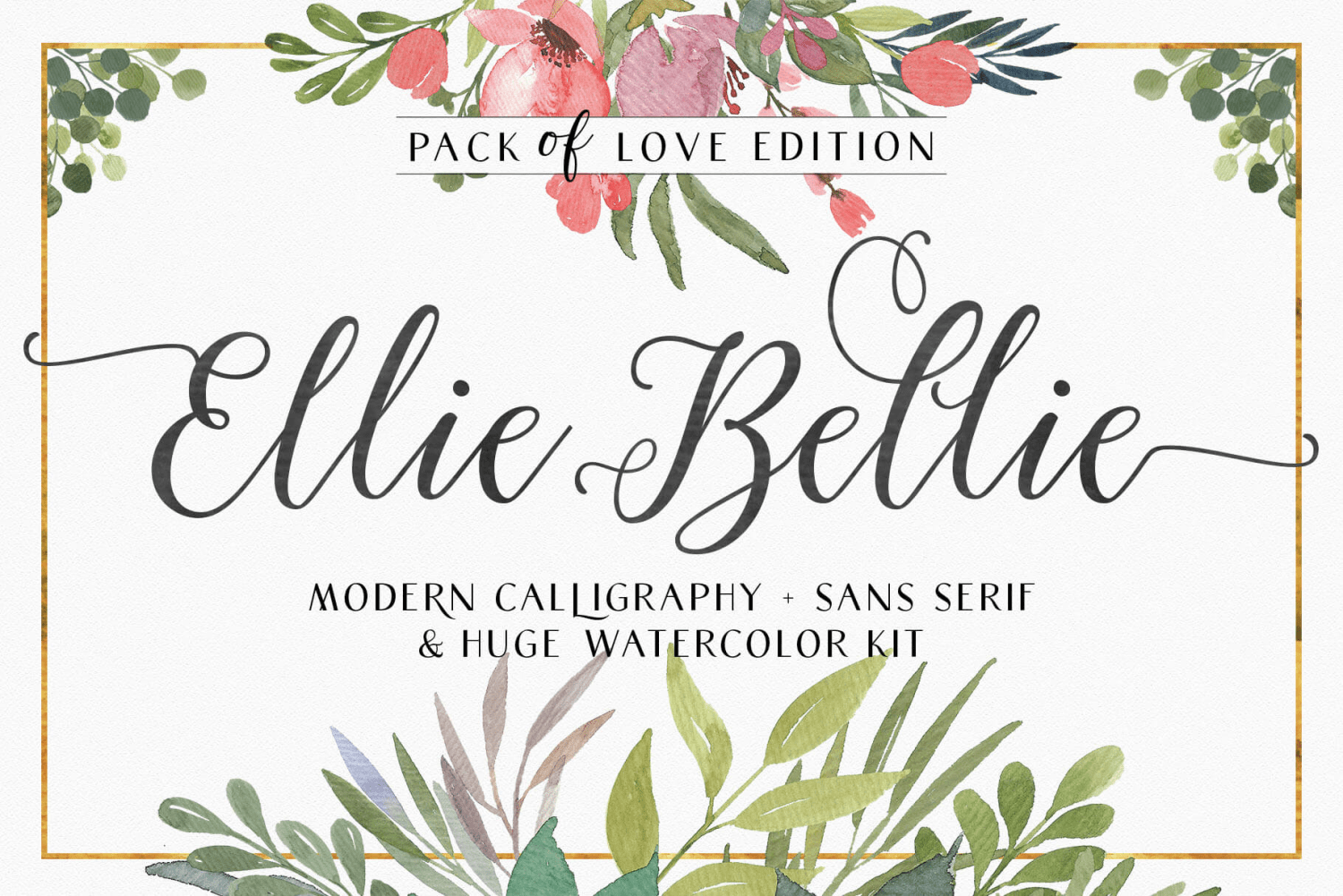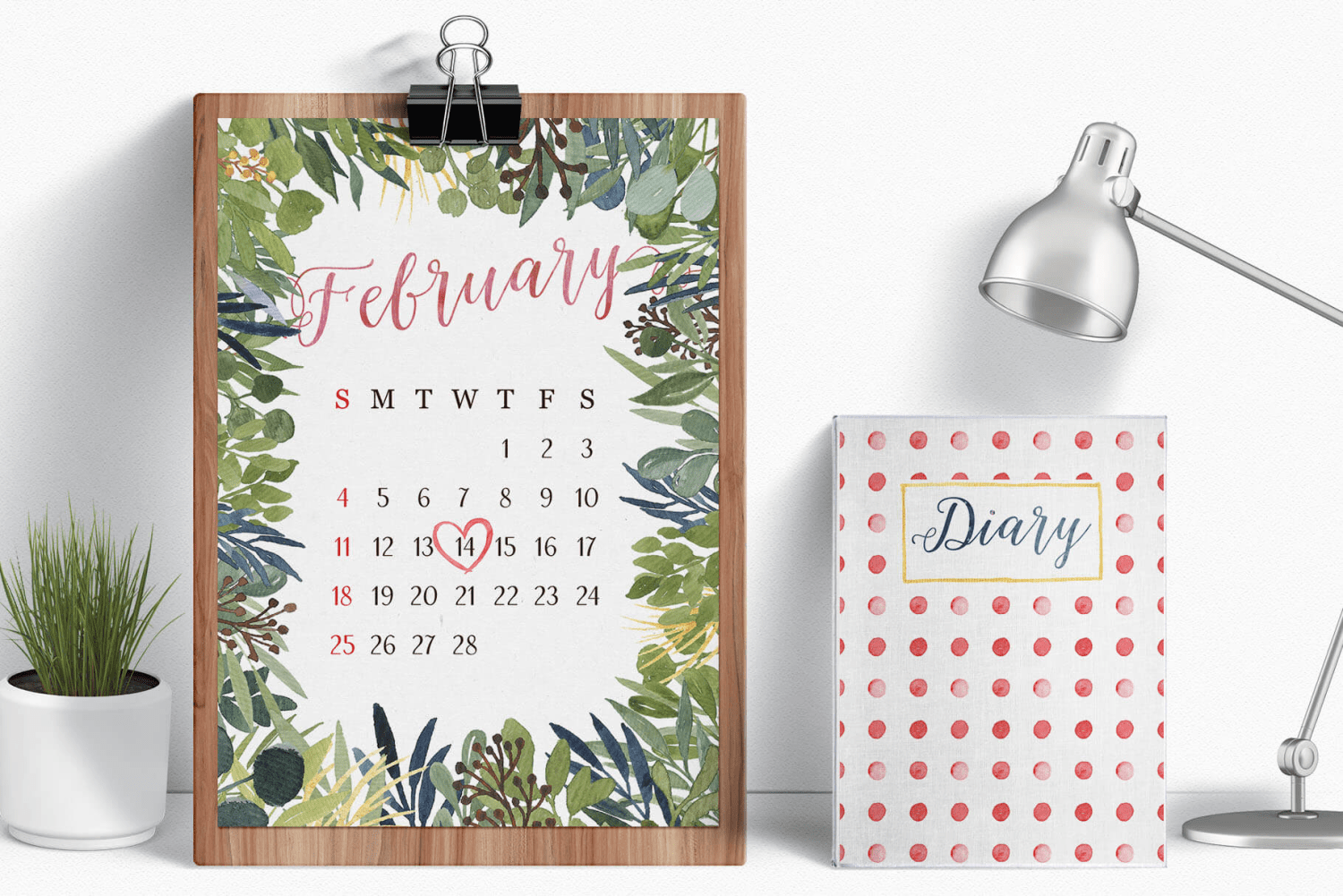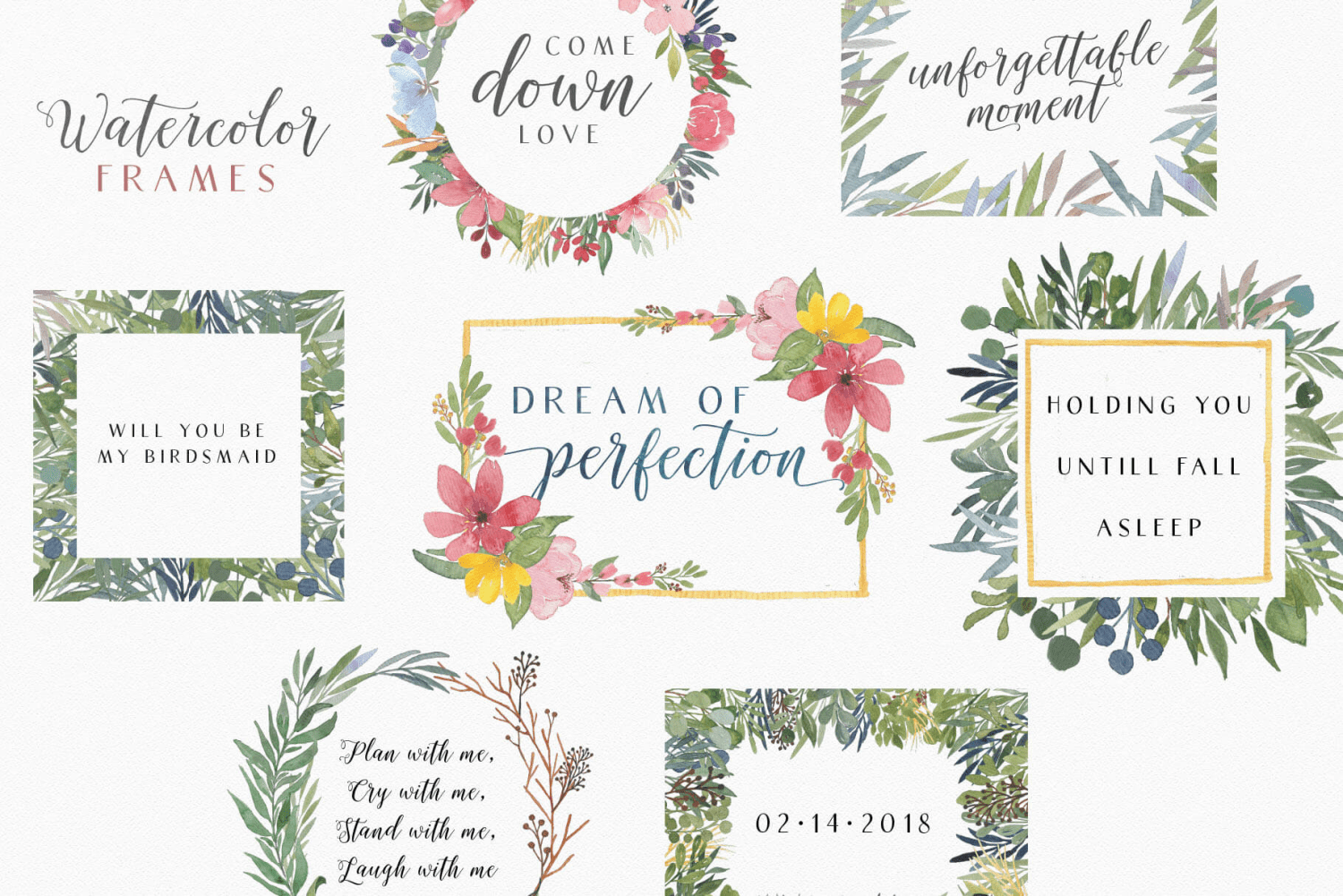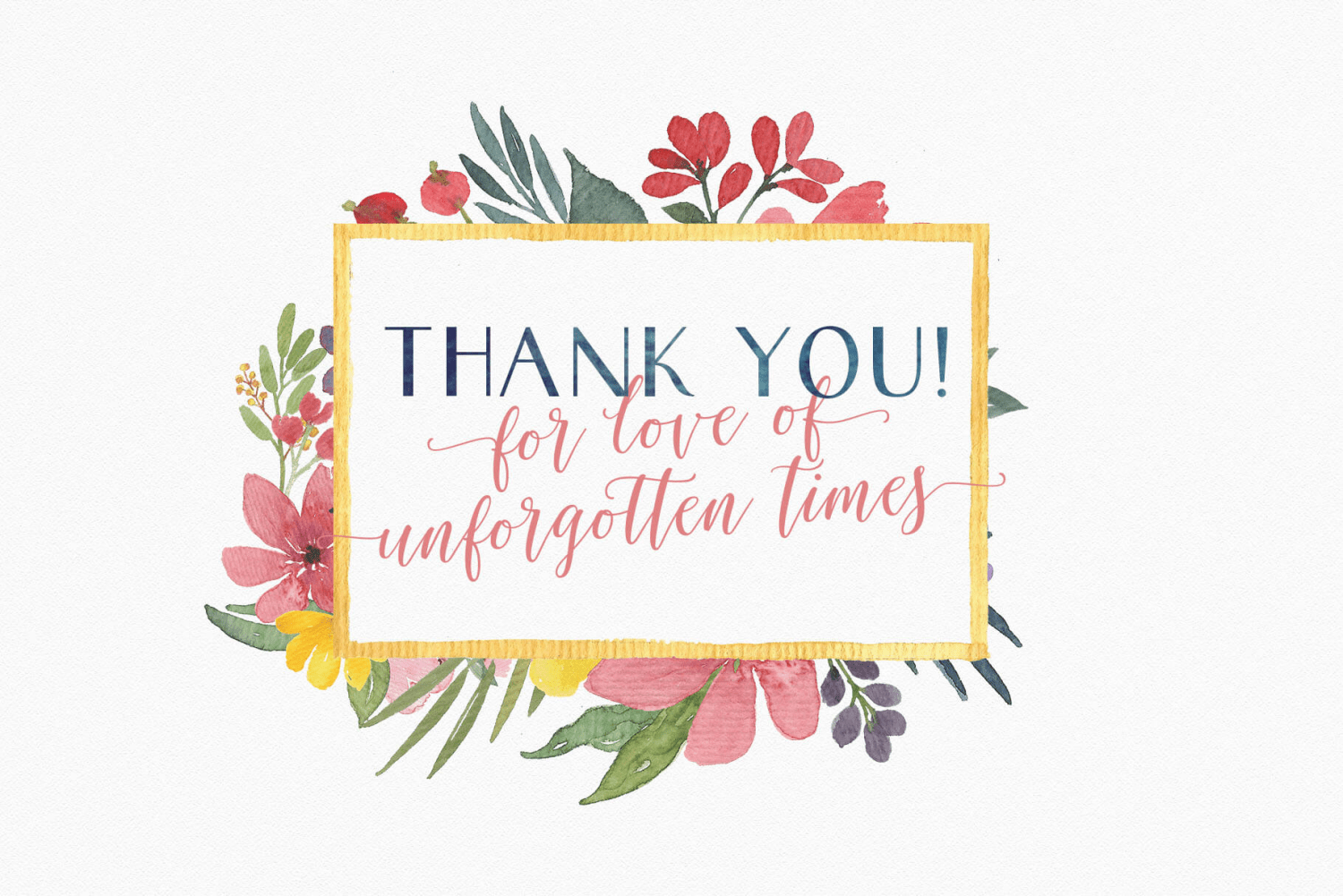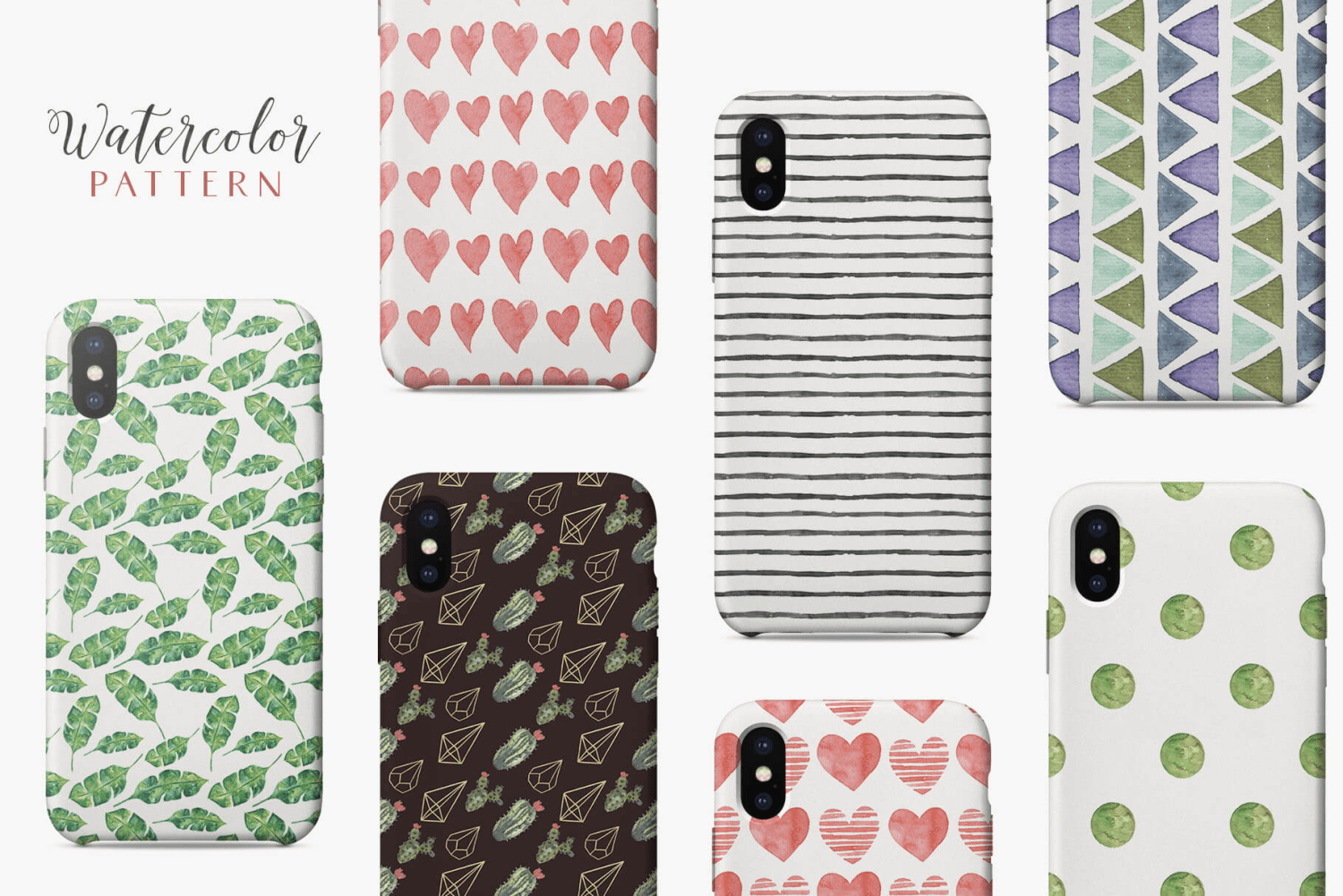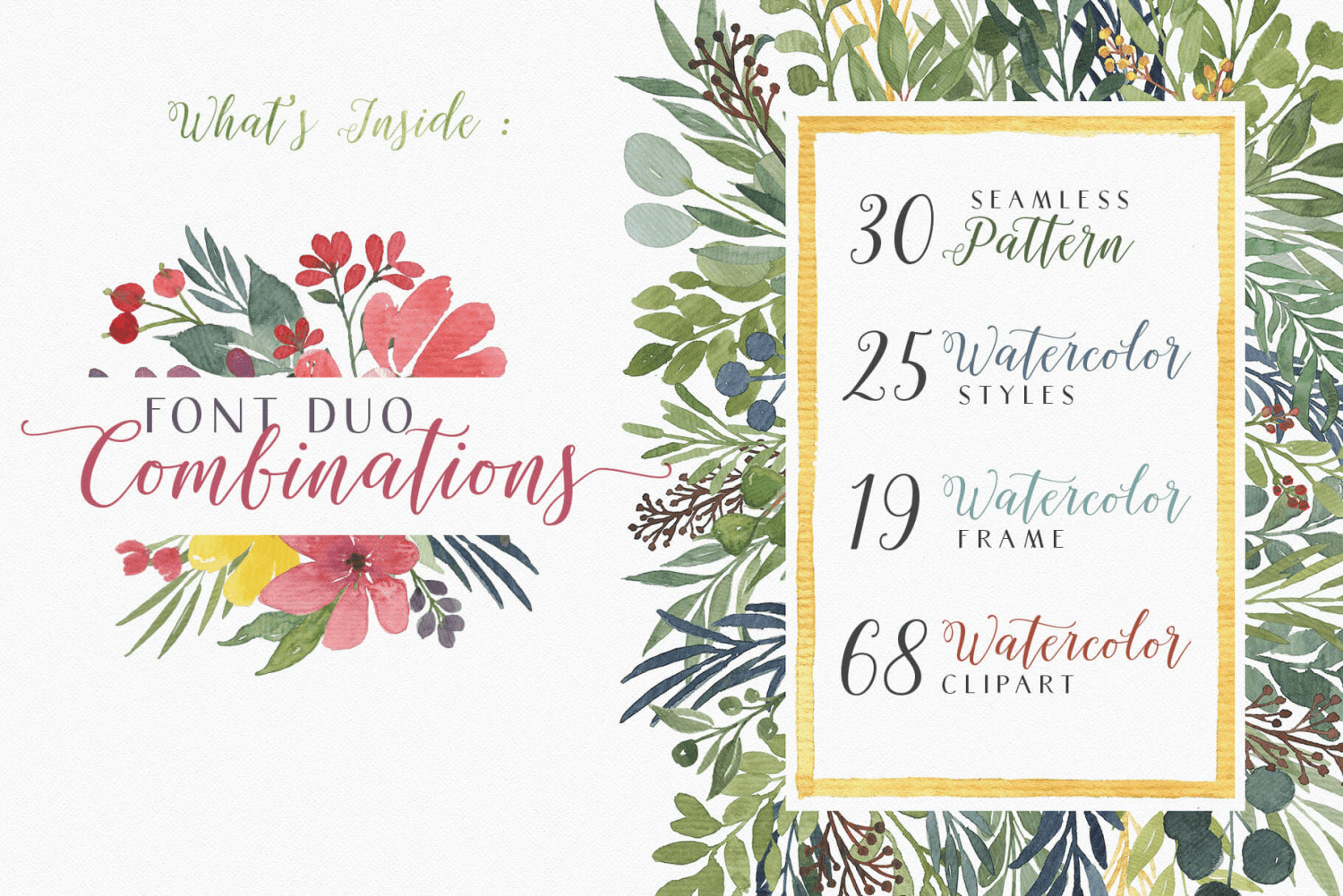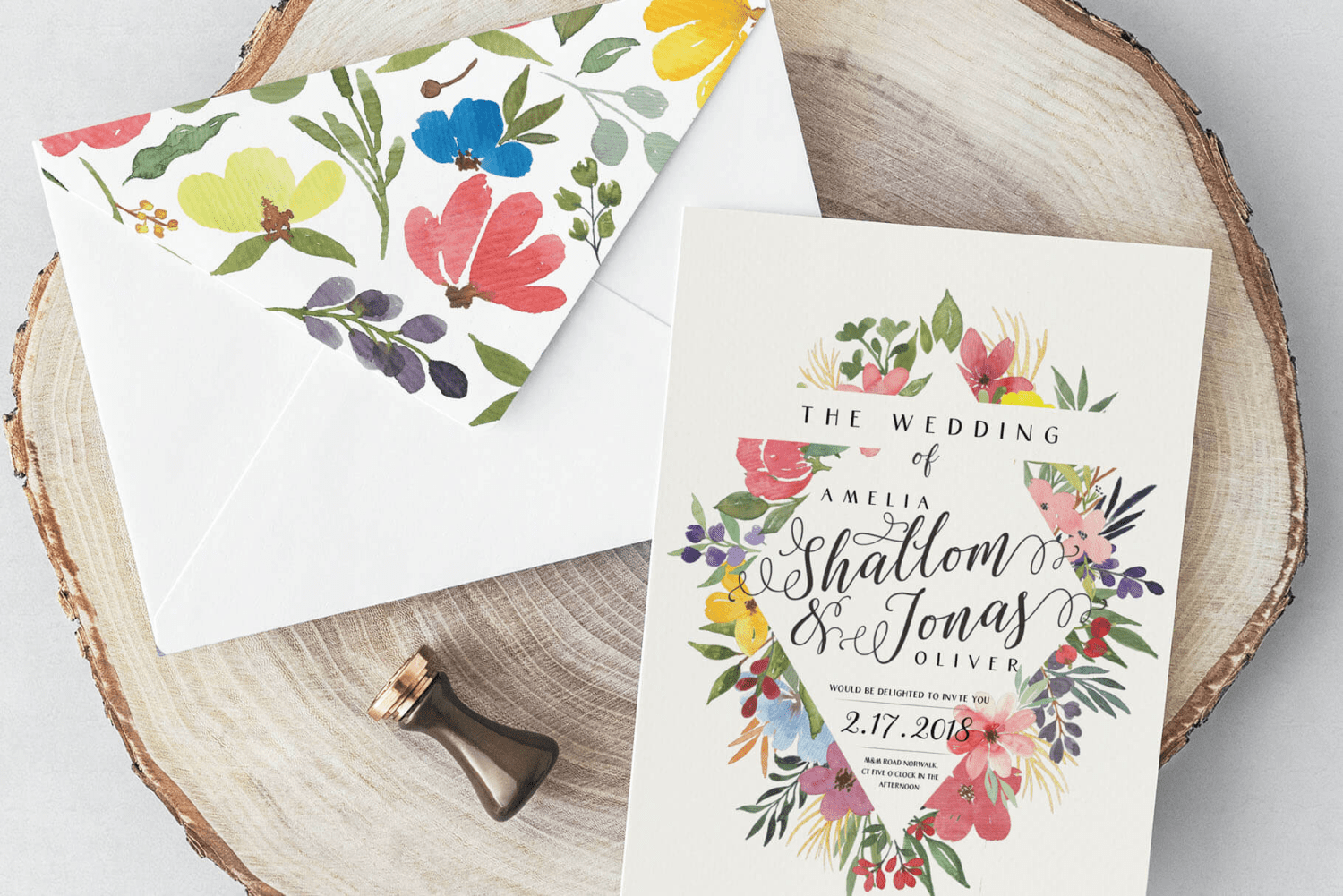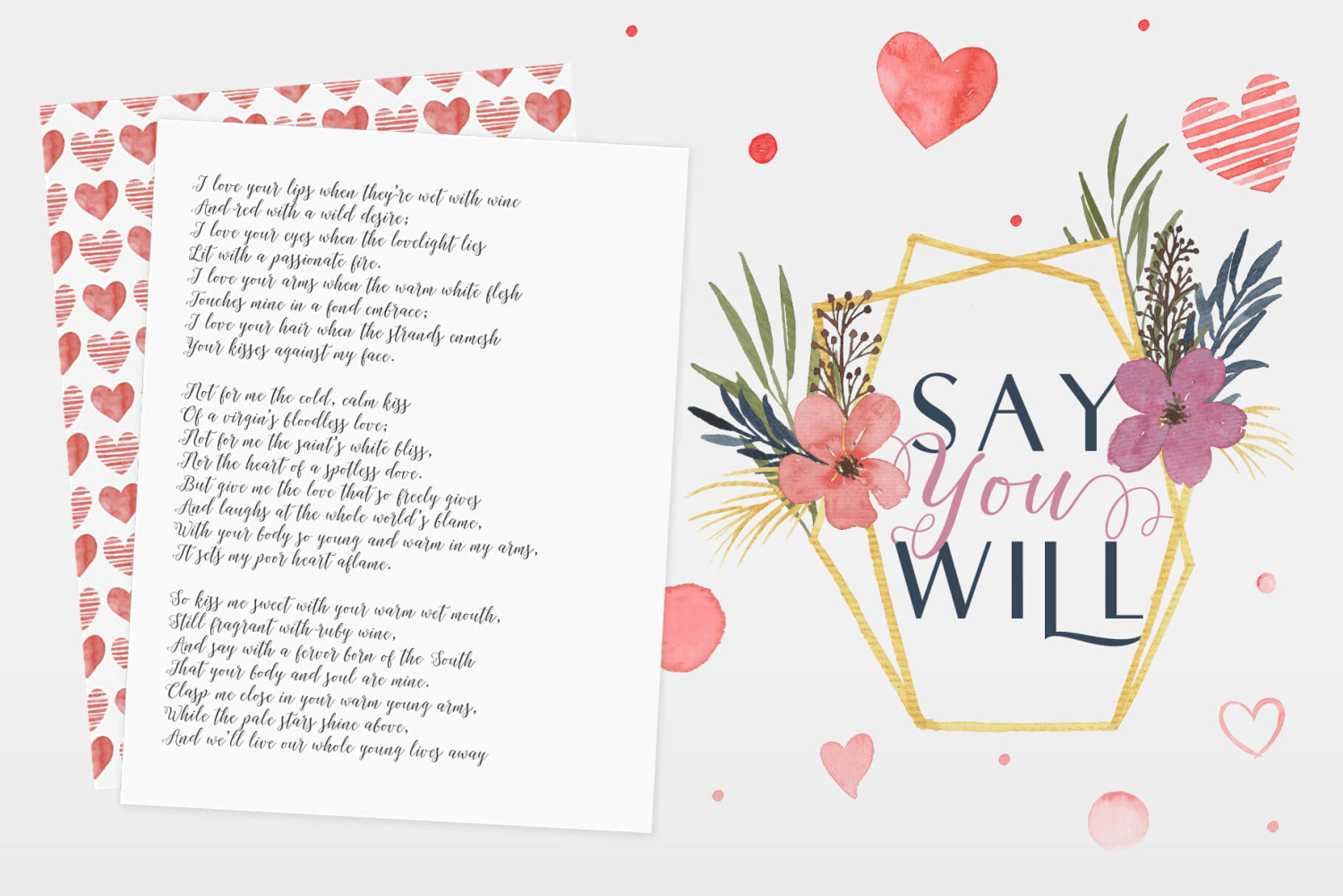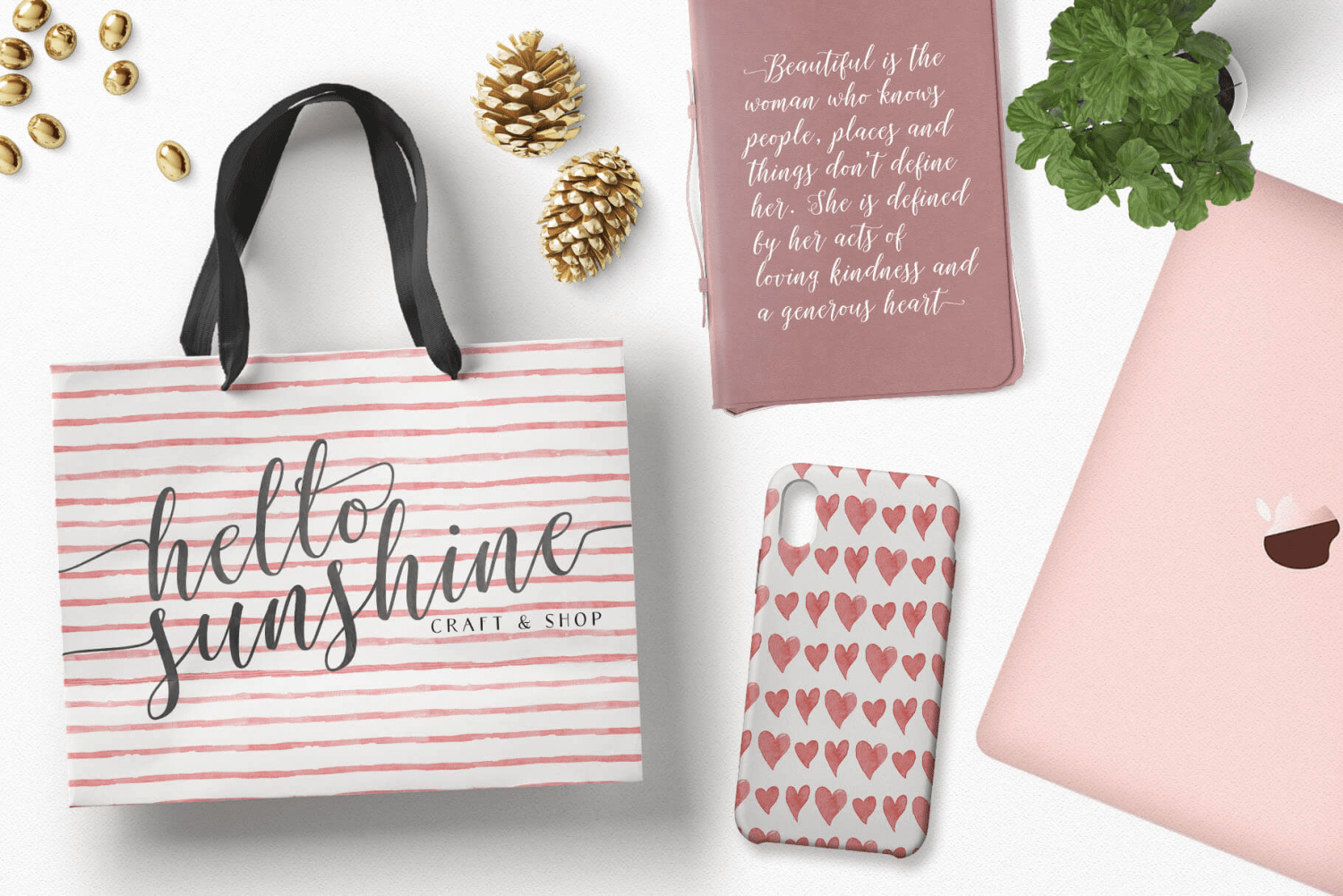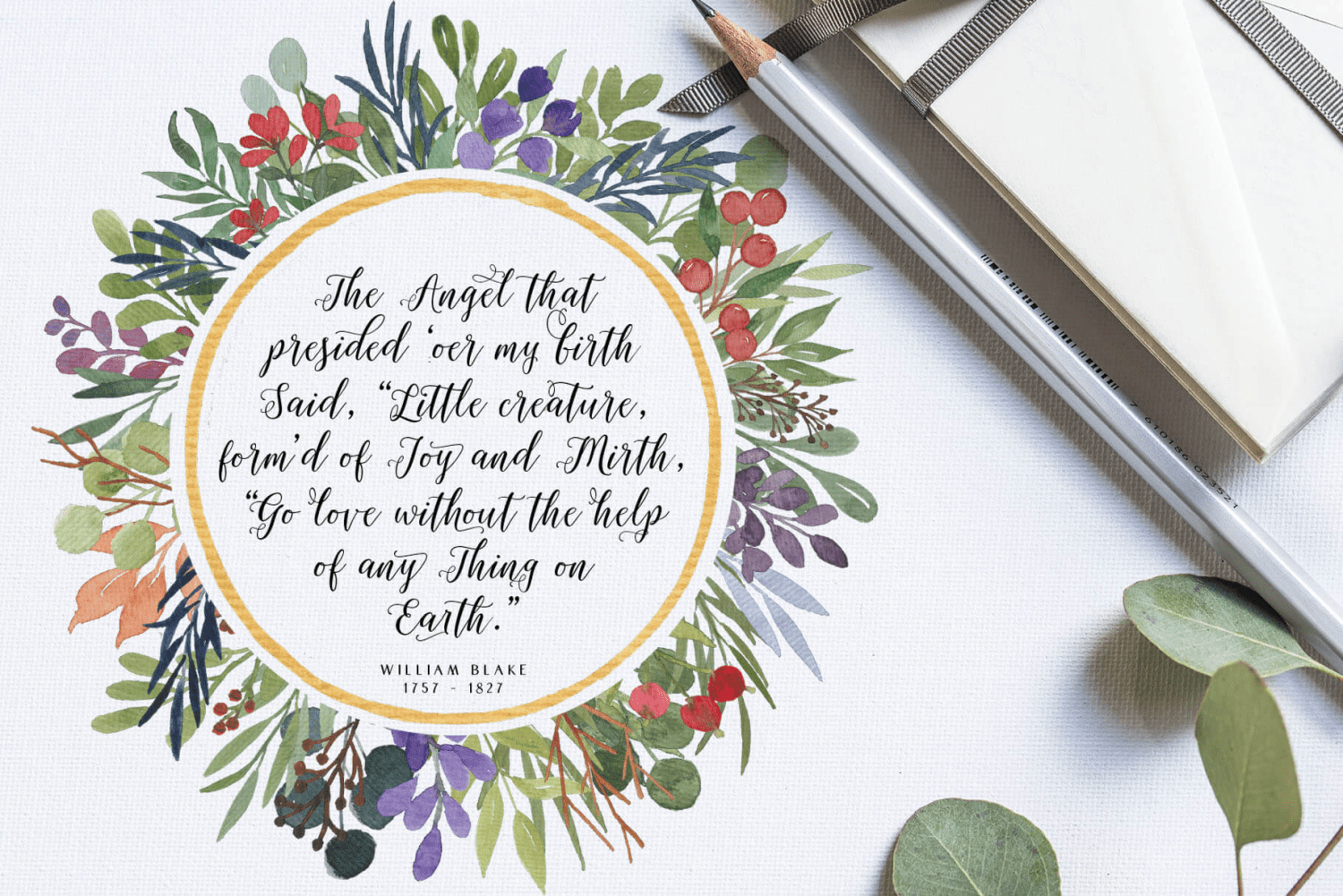
Ellie Bellie
Font Family by AF Studio
Ellie Bellie is an advanced Font Duo that combines Modern Calligraphy Script and Sans Serif Fonts. Combining both fonts made it easier to create something on typing design content such as headlines and sub-headlines, logos, digital lettering, cards, branding, etc.
Ellie Bellie Script has active Opentype Features, such as Contextual Alternates for changing the letters when they meet the same letters, changing the letters automatically on an isolated letter. Standard Ligatures, Discretionary Ligatures, Contextual Swash to easily add the swash at the beginning and end of letters, Stylistic Sets up to 21 alternate letters, Fractions, and Old Style Figures. Ellie Bellie Sans are less OpenType features, just a few of Stylistic Sets. Both fonts support multilingual languages.